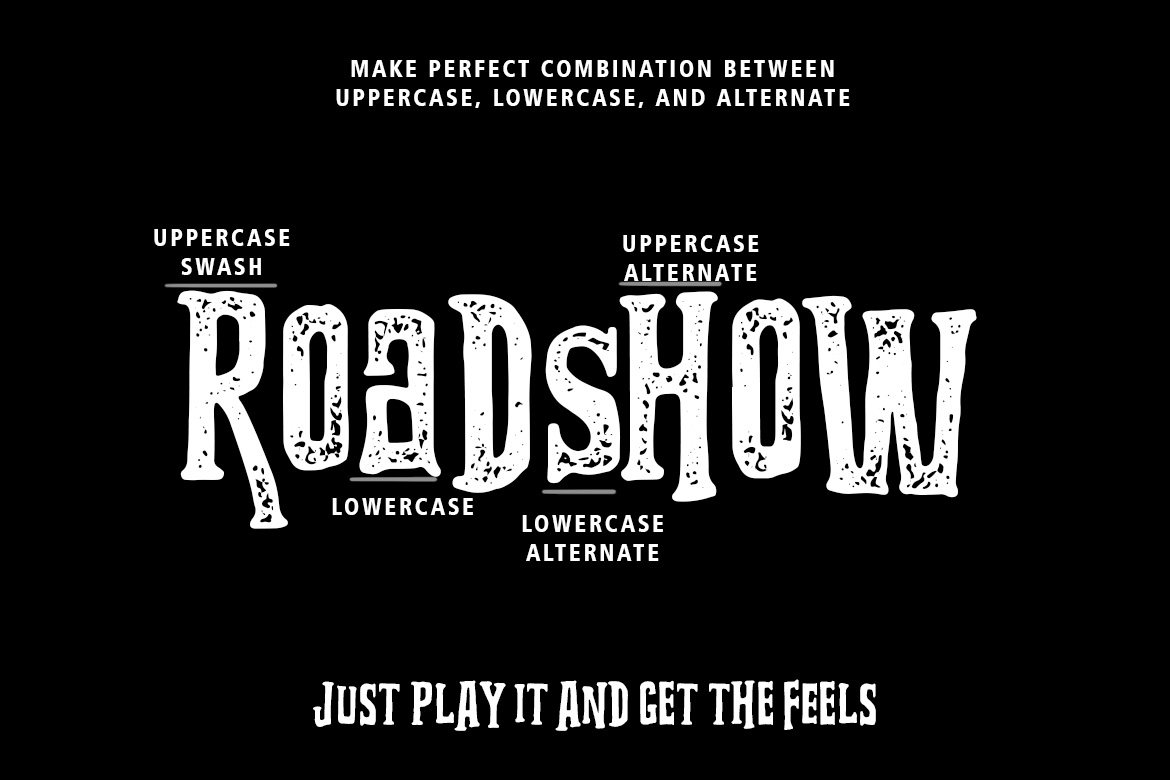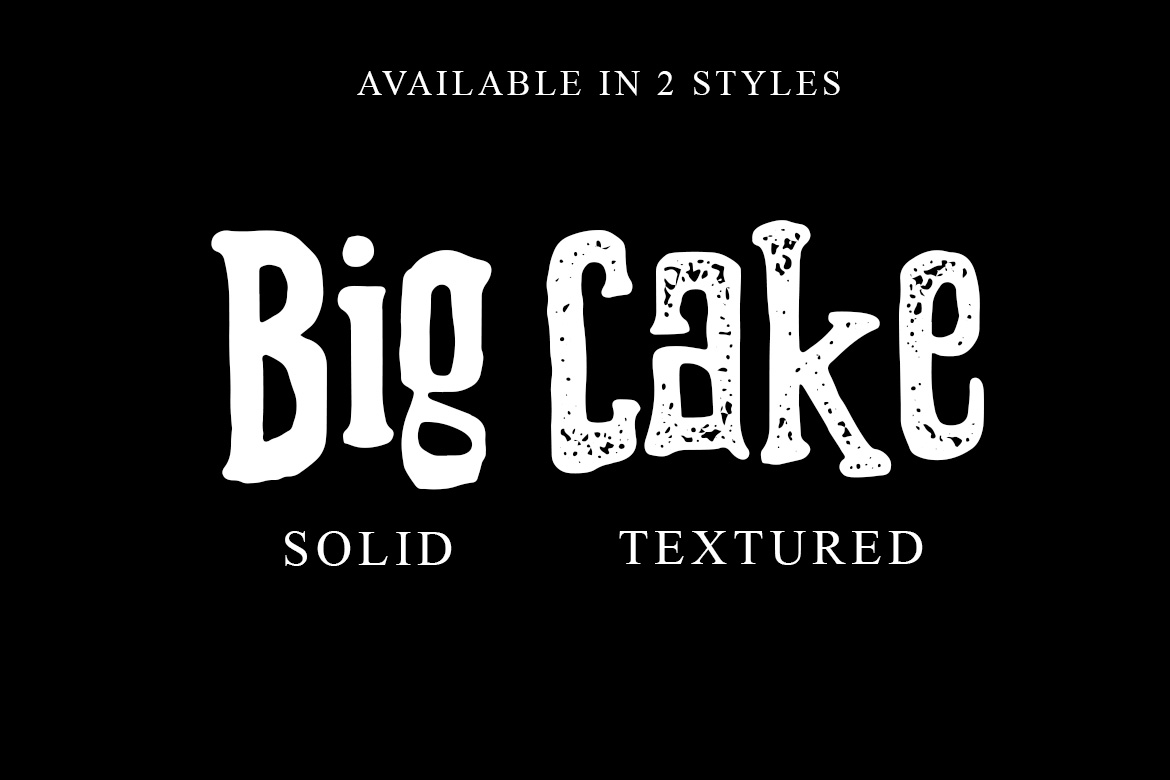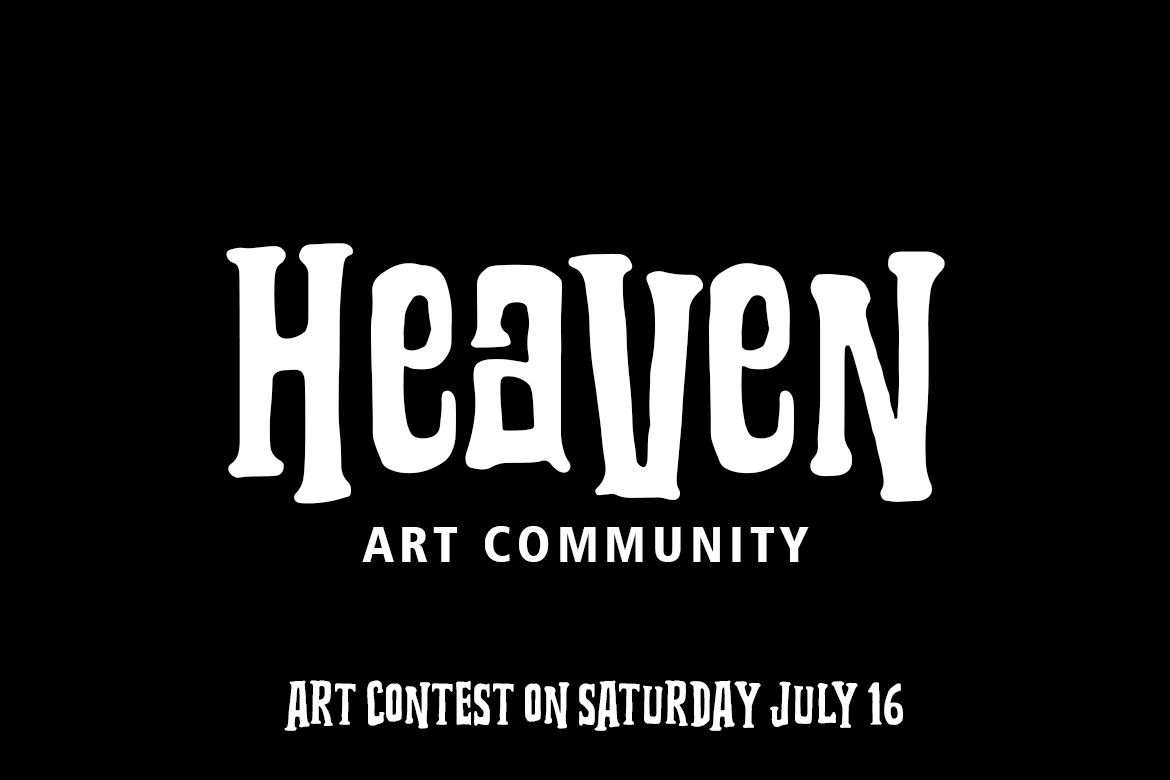
Introduction to Grooving Font
Grooving is a stunning, blocky vintage typeface.
This font comes in 2 different styles, making it applicable for a wide range of project types and designs that need a vintage appeal .